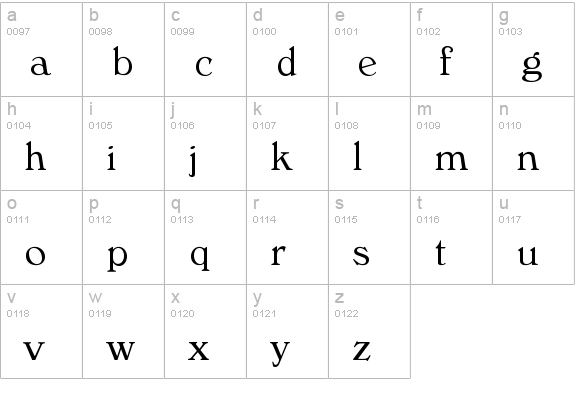
Verona-Light Font Details
Verona-Light is a refined, elegant variant in the Verona typeface family \xE2\x80\x94 well suited to elegant body text, refined sub-headings, and luxury branding.
Introducing Verona-Light, a stunningly elegant font that captures the essence of sophistication and grace. With its delicate and refined strokes, Verona-Light exudes a timeless beauty that instantly captivates the eye. This font is perfect for those seeking a touch of elegance in their designs, whether it be for invitations, logos, branding, or any creative project that requires a touch of class. Verona-Light effortlessly combines legibility with a sense of artistic flair, making it a versatile choice for both print and digital media. But what sets Verona-Light apart from other fonts is its accessibility. We're thrilled to announce that Verona-Light is available for free download exclusively at FontsMarket.com. Yes, you read that right – this exquisite font can now be yours without spending a dime. FontsMarket.com, a trusted source for high-quality fonts, is proud to offer Verona-Light as part of their extensive collection. With just a few clicks, you can have this elegant typeface at your fingertips, ready to elevate your designs to new heights. So why wait? Don't miss out on the opportunity to enhance your creative projects with Verona-Light. Download it today from FontsMarket.com and unlock a world of design possibilities, all with the added bonus of being freely available. Experience the beauty and versatility of Verona-Light, and let your imagination soar.